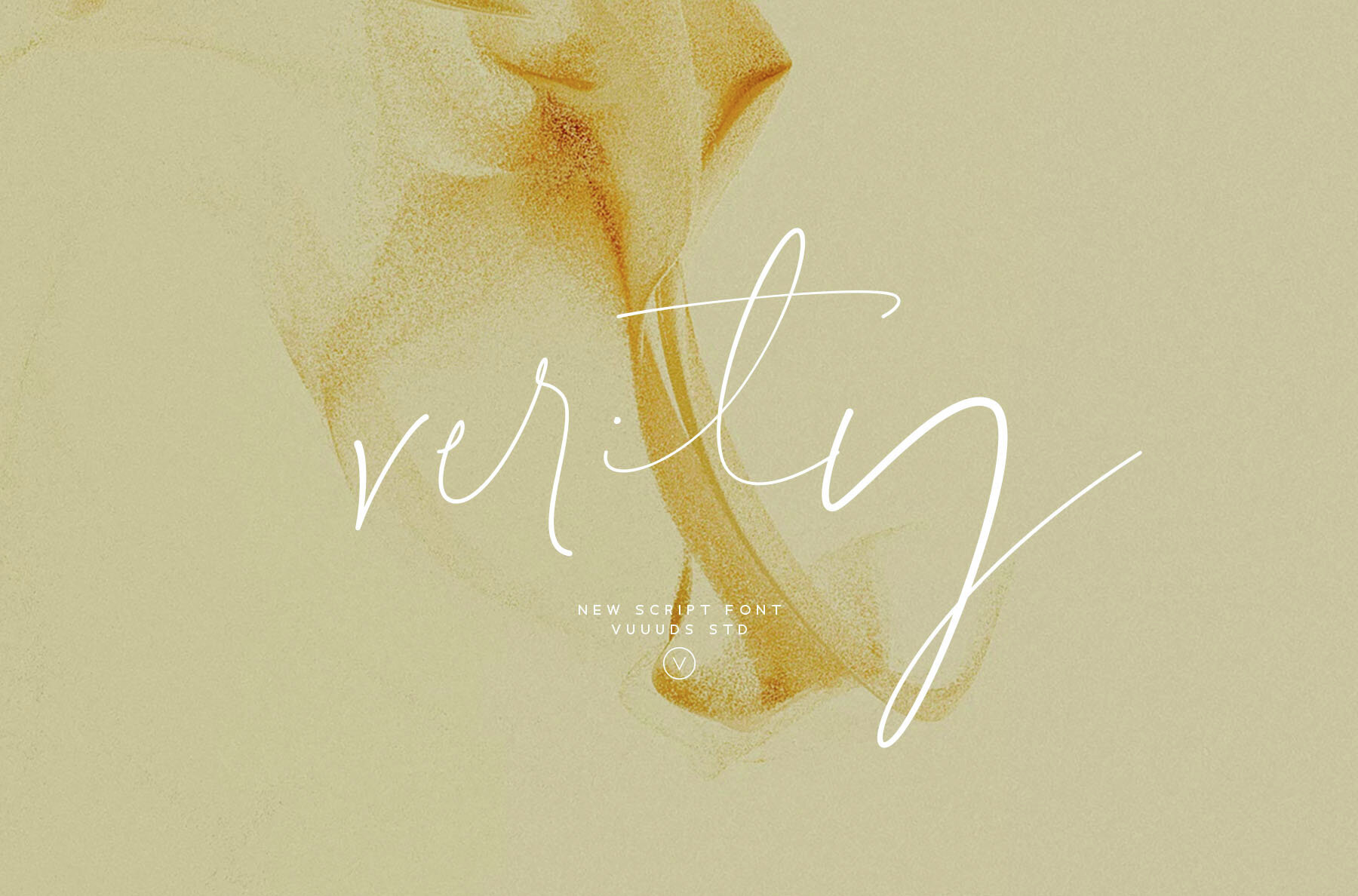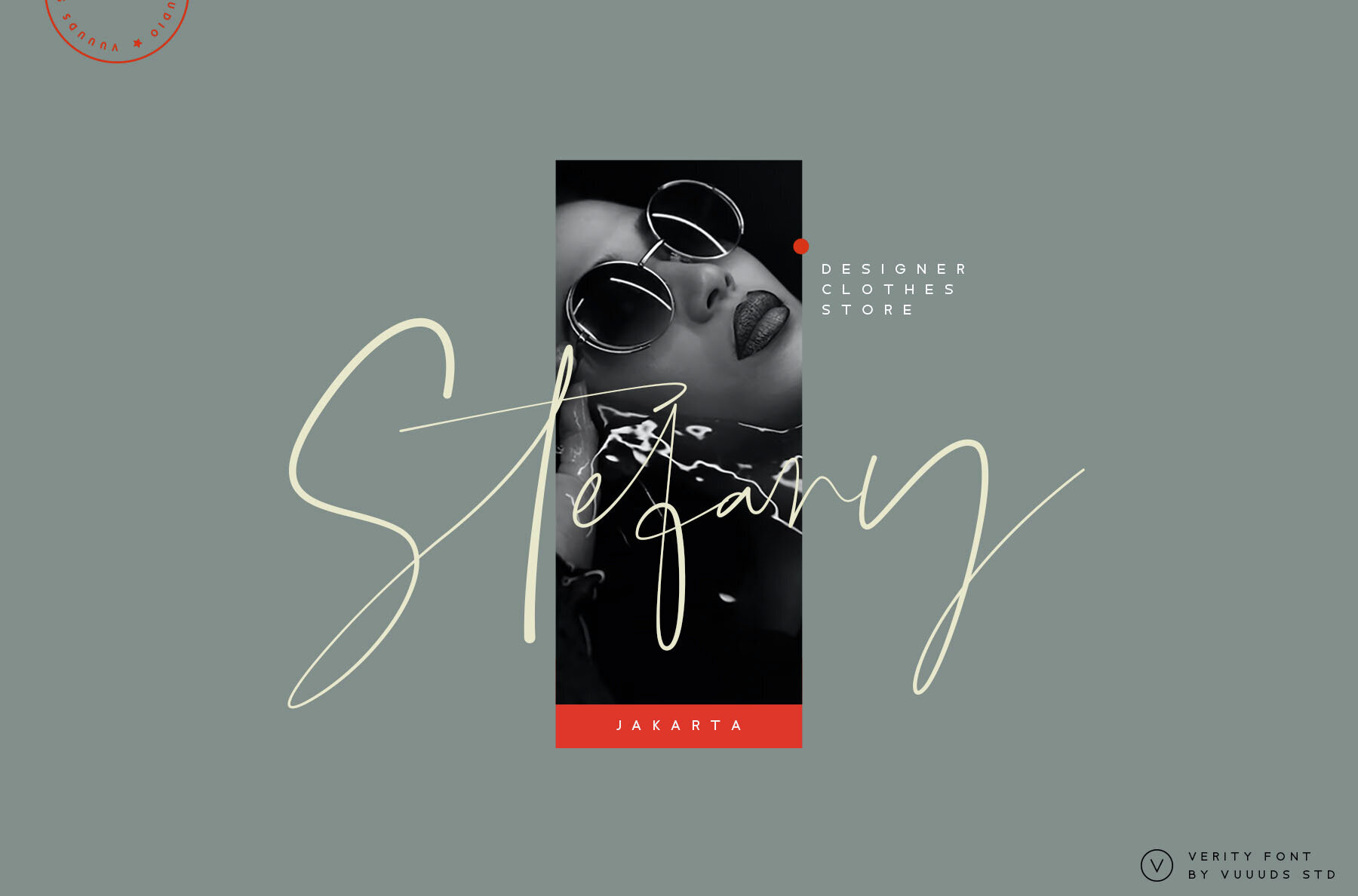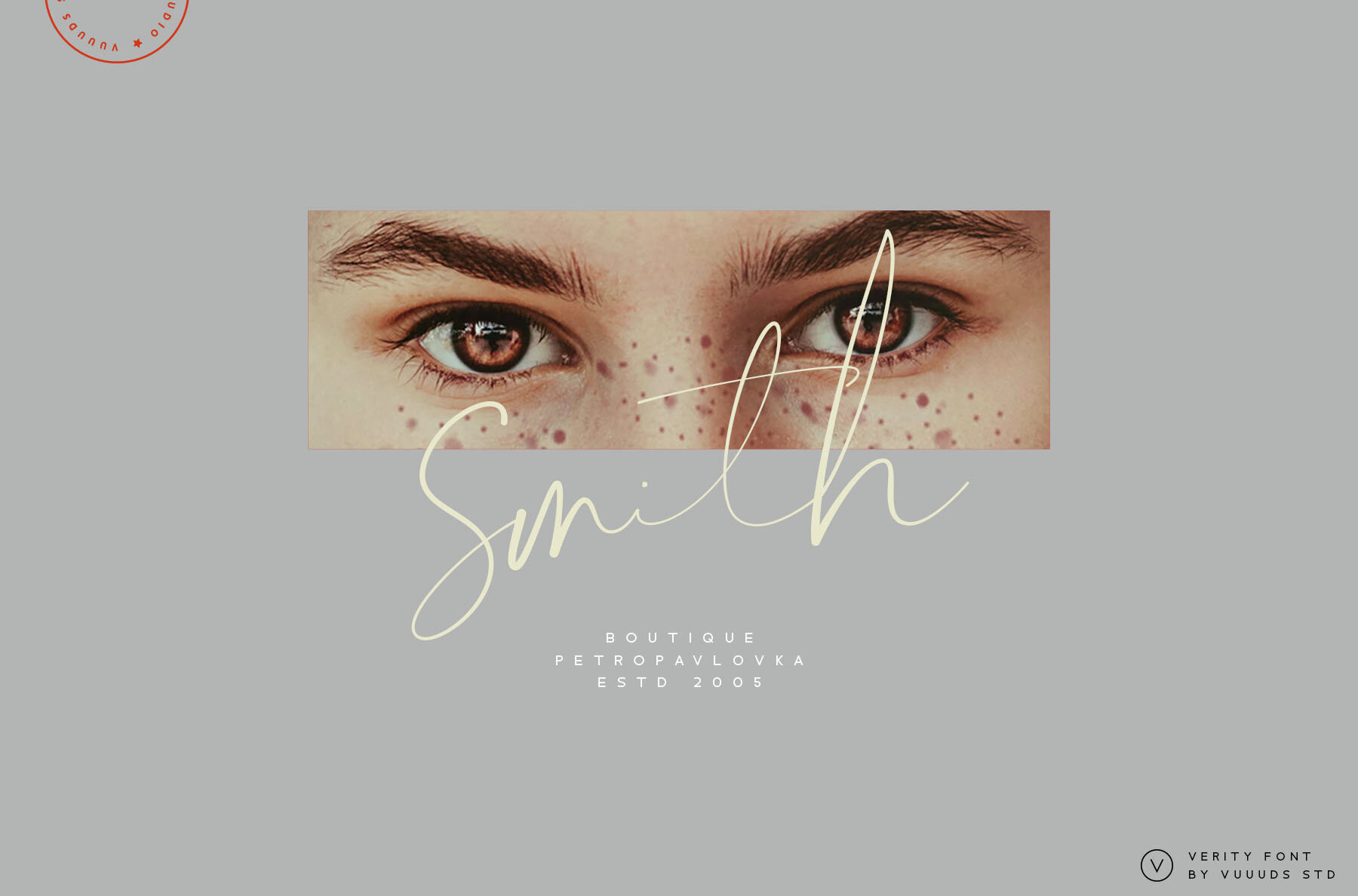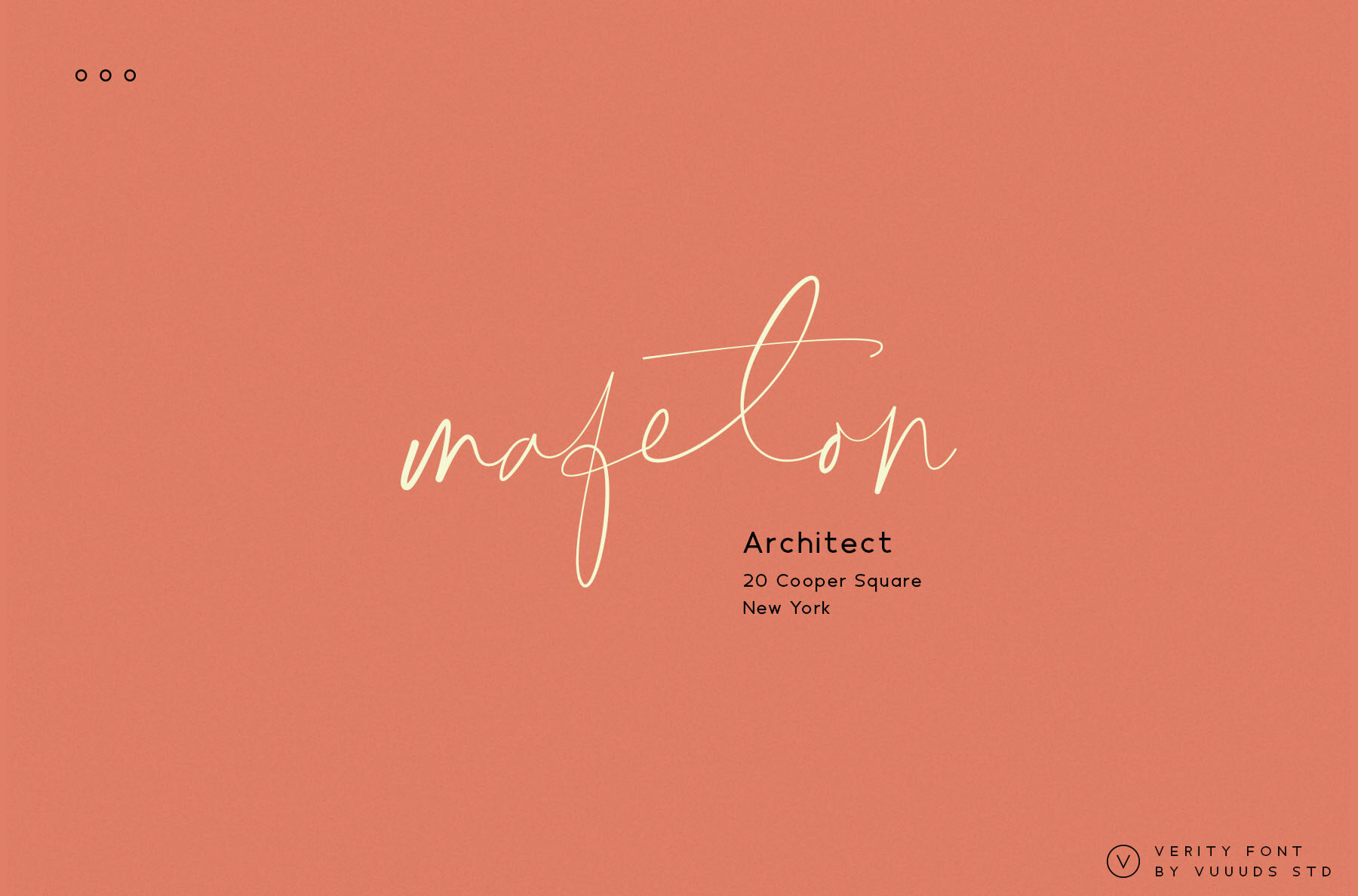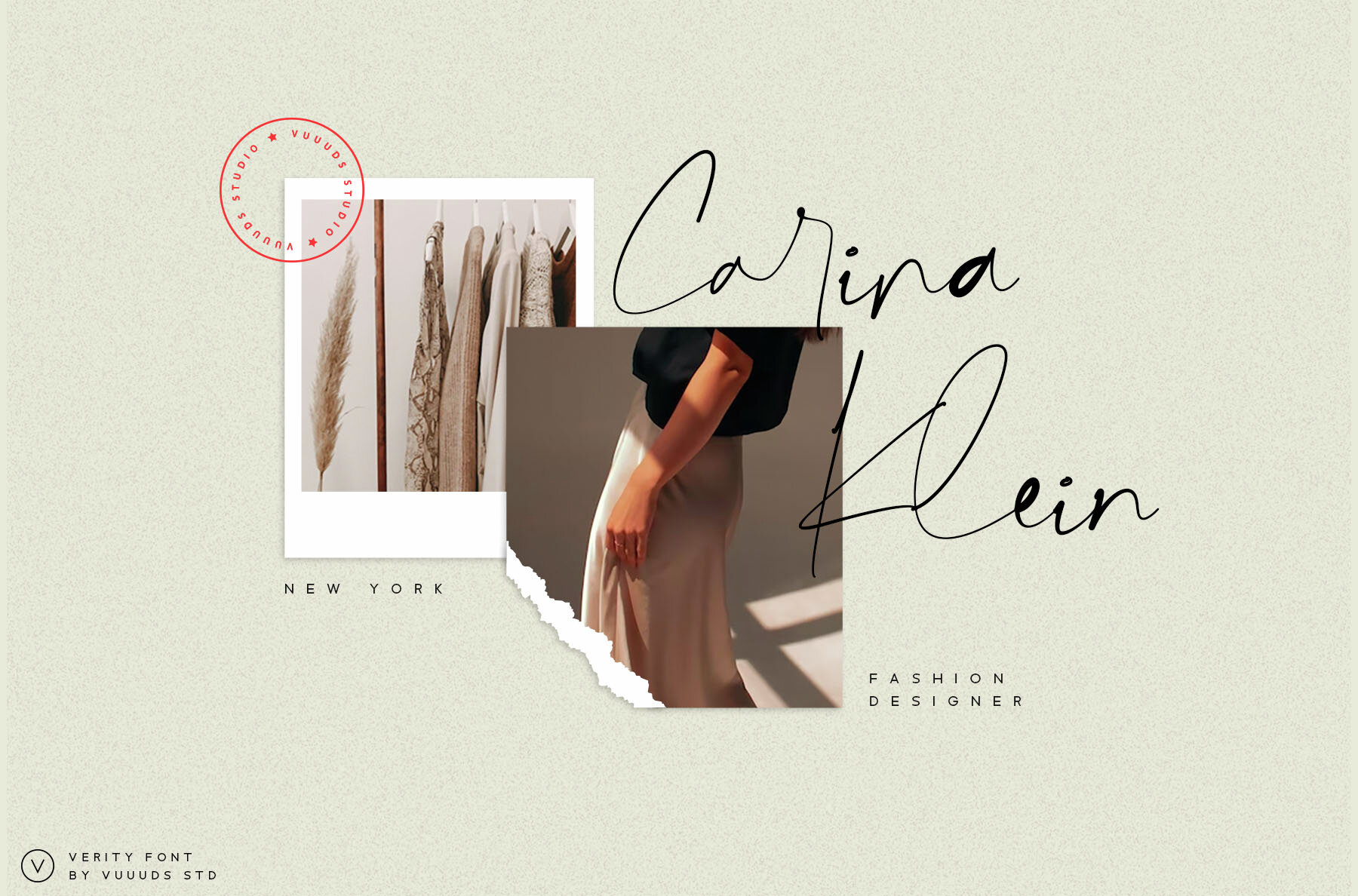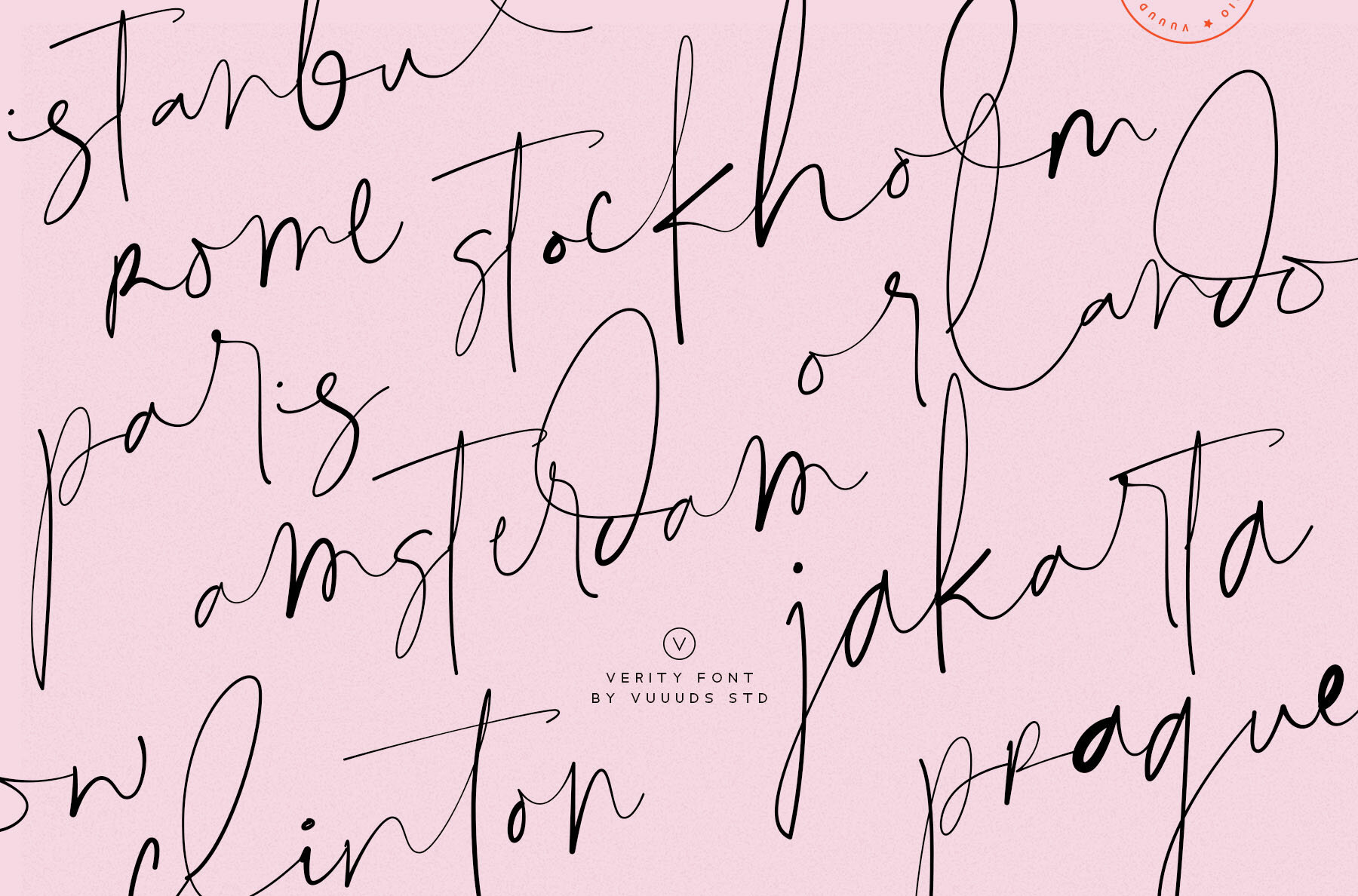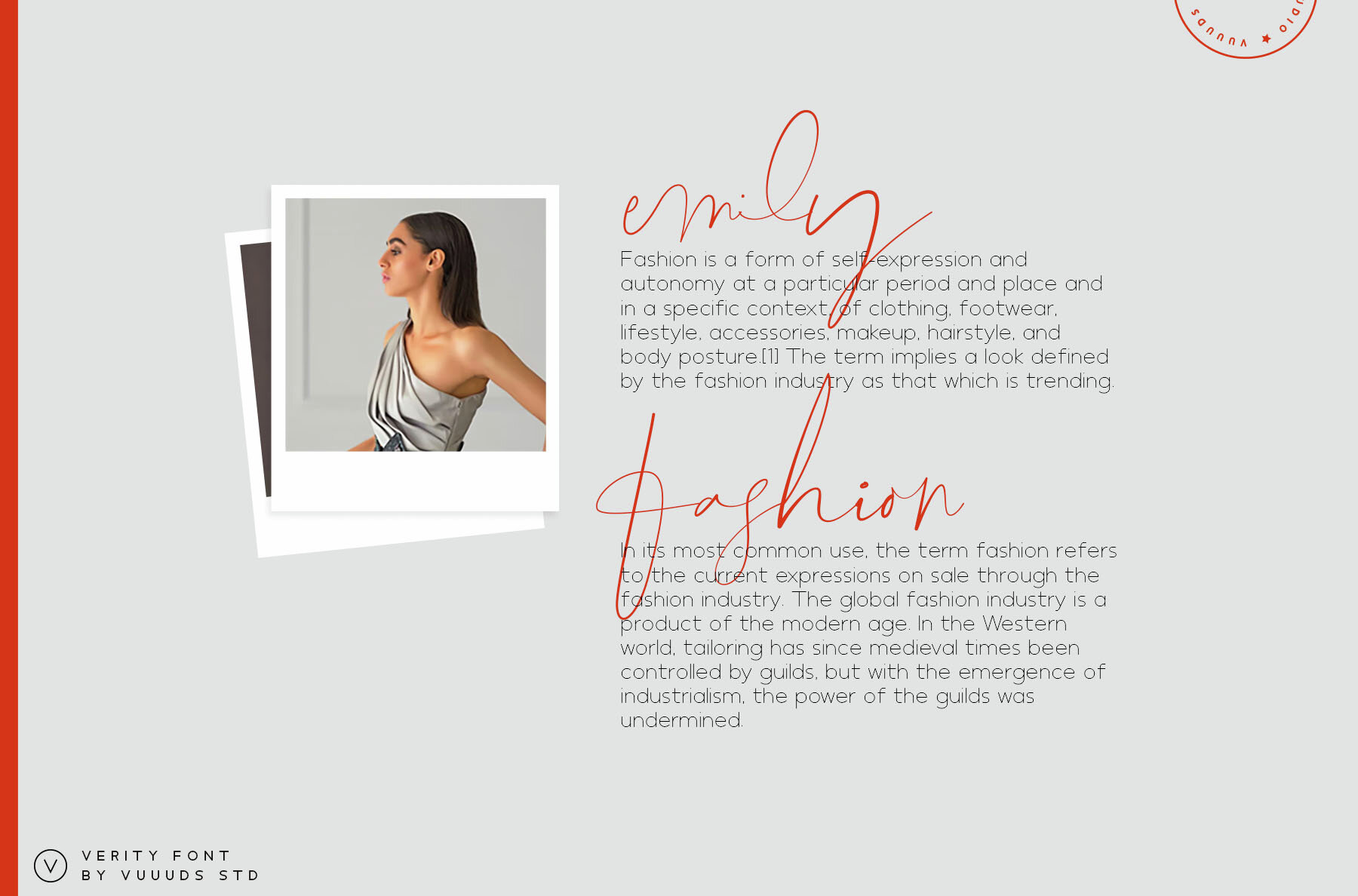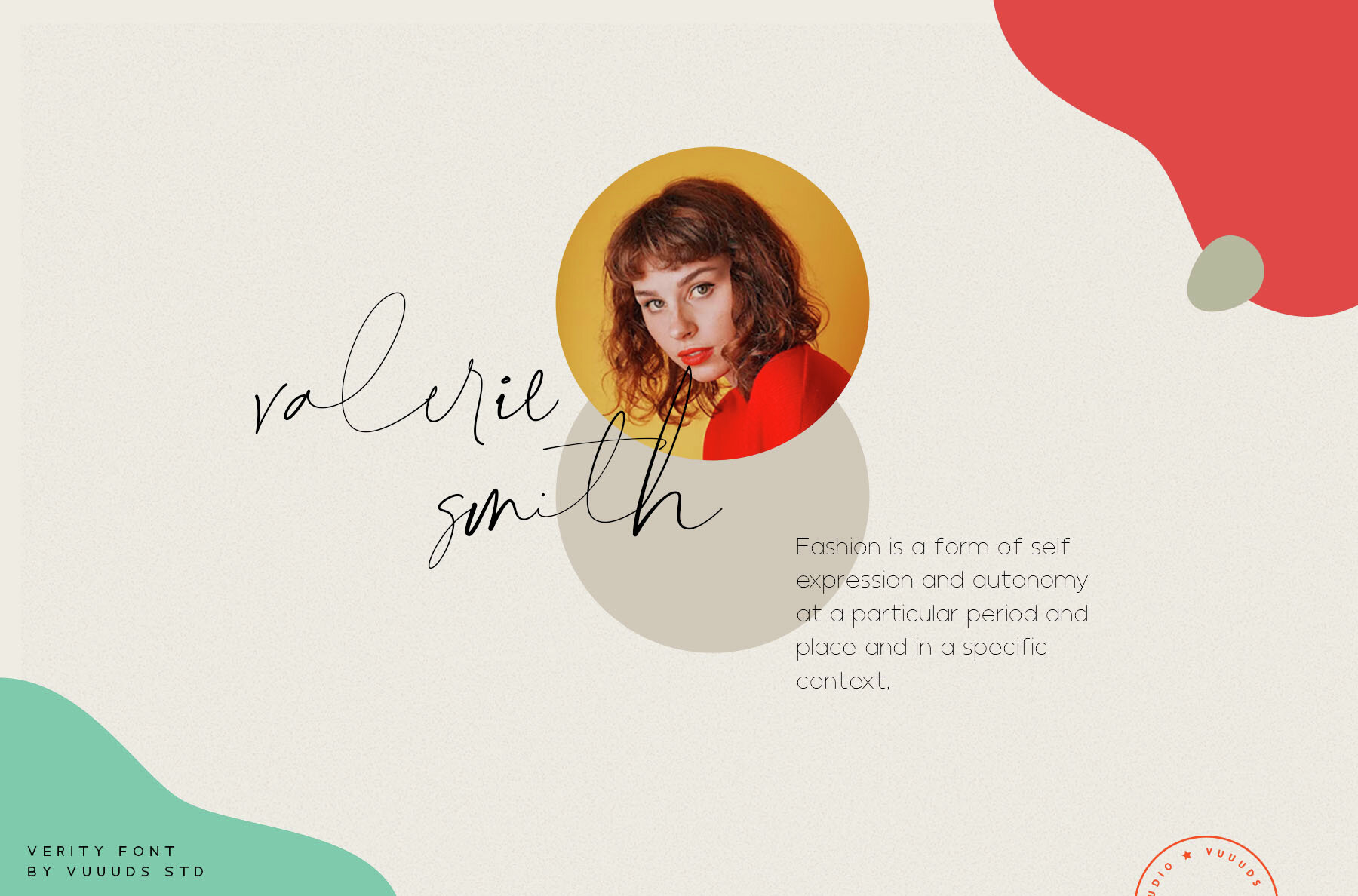
Verity Font
Verity Regular
Verity is a modern signature script font designed with precision and care. Each letter is carefully crafted to enhance the beauty of your text. Its contemporary script style makes it ideal for a variety of projects such as photography, watermarks, quotes, blog headers, posters, weddings, branding, logos, fashion, apparel, letters, invitations, and stationery.Verity: A Modern Signature Script Font